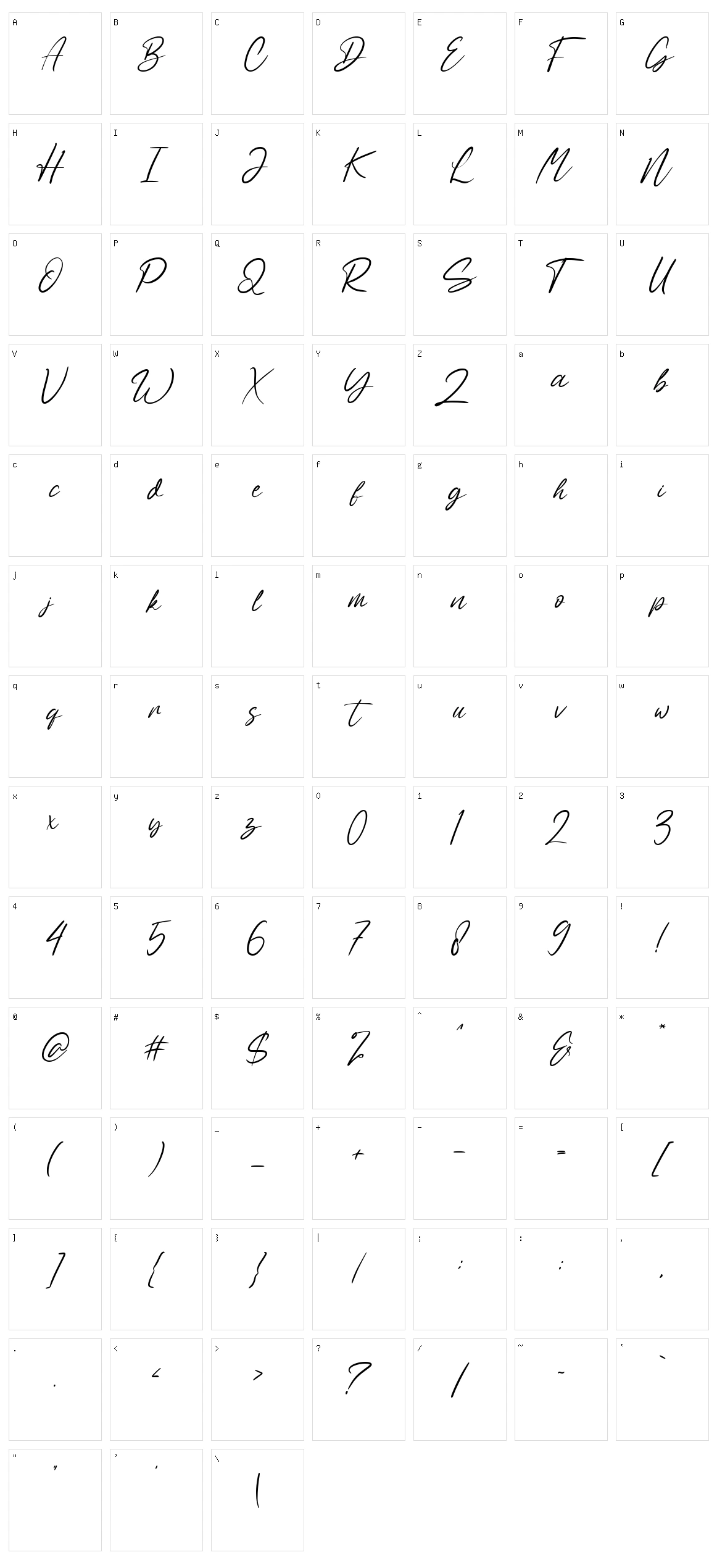
The free font Sabeny Betranss is carefully designed by StringLabs Creative Studio, showcasing a thoughtful balance of creativity and usability and falls under the Script font style. When you download the ZIP file, it contains only 90.17 KB of font files, making it lightweight and quick to download. Please review the license details below to understand permitted usage and distribution rights. If license information is not available, we recommend using this font for personal projects only or contacting the author directly for commercial usage permissions.